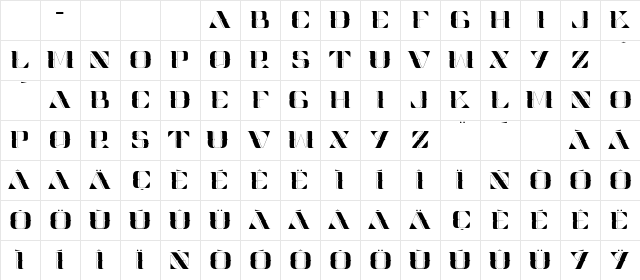
Complete ValkDisplay Regular glyph index. Displaying only characters natively supported by ValkDisplay Regular font.
ValkDisplay is built around its visual character rather than neutral utility - its distinctive forms are designed to make an impression at display sizes.
Font Pairing: Pair with a clean neutral sans-serif for body copy to let ValkDisplay's character lead without overwhelming the composition.
Pro Tip: Use ValkDisplay exclusively at display sizes - it was designed to be seen, not read at length. Let a neutral companion handle body copy.